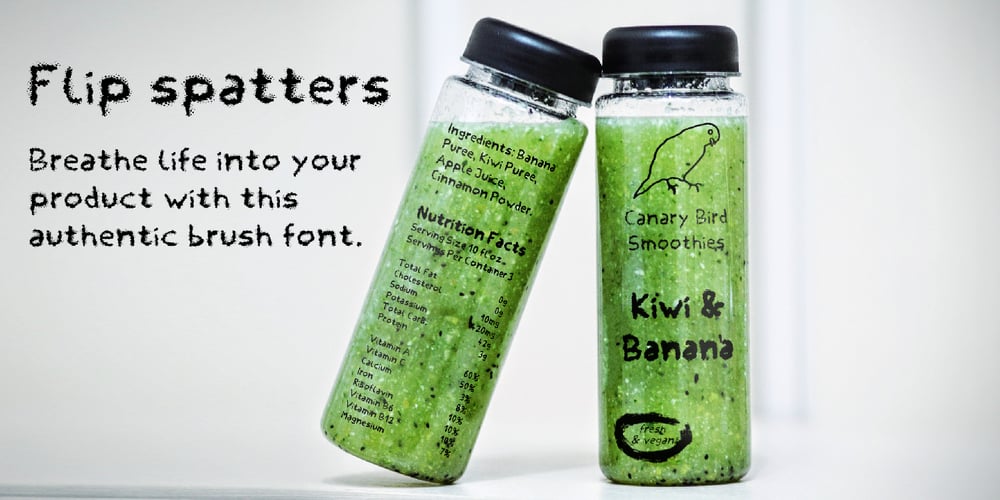
Flip Spatters
Flip Spatters font
Flip Spatters Font Family was designed by Matthias Luh and published by Matthias Luh. Flip Spatters contains 1 styles and family package options. Flip Spatters is a very detailed font. It looks like blotches/ink spatters or graffity. It has a lot of characters (~215) and the spatters are different and detailed. But unlike some other ‘crazy’ fonts, Flip Spatters even looks brilliant using a font size starting from 9pt. So you can use it for text and graphic utilization.